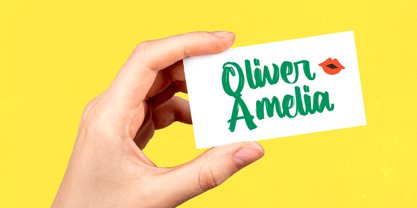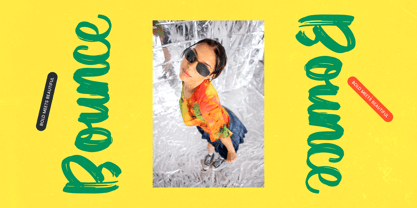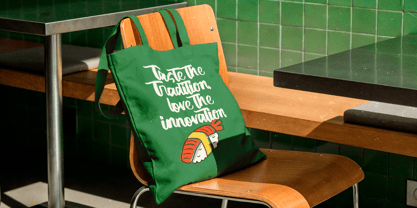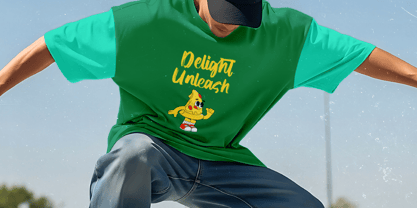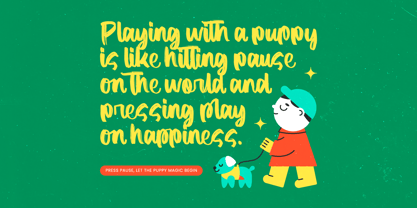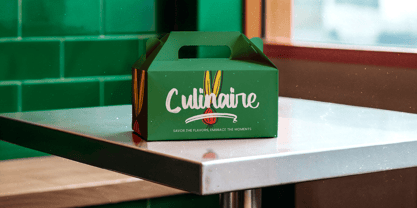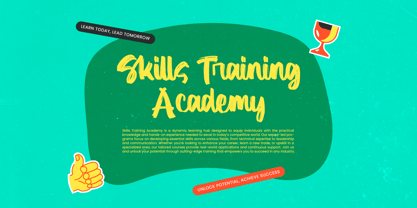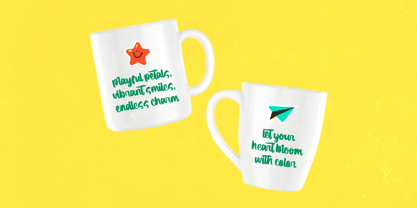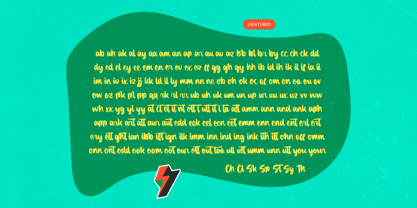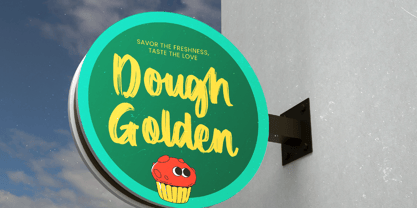
Manlight Sectarin
by Letterena Studios
The Manlight Sectarin Font Family was designed by Heru Utama Putra and published by Letterena Studios. Manlight Sectarin contains 2 styles and family package options. More about this family
Manlight Sectarin is a modern brush font designed to deliver bold personality, playful energy, and strong visual impact. Crafted with expressive brush strokes and dynamic letterforms, this typeface captures the raw charm of hand-painted typography while maintaining smooth readability. Perfect for branding, posters, packaging, merchandise, social media graphics, children’s designs, and eye-catching headlines, Manlight Sectarin brings a vibrant and youthful character to every project. Featuring 170 ligatures, 26 alternates, and 6 swashes, it offers extensive creative flexibility for seamless letter combinations and stylish variations. Whether used for fun campaigns or bold brand statements, this brush font adds confident movement and standout appeal to both print and digital designs.